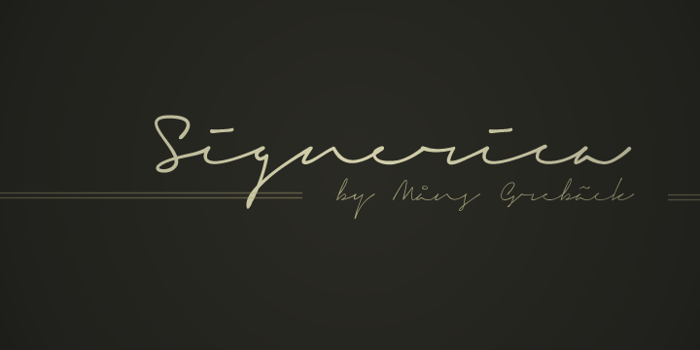
Signerica Font
Signerica Thin
Signerica Medium
Signerica Fat
This is absolutely beautiful.
This is AWESOME!
sik font
nice 😛
this looks like a proper signiture!!!!
it looks like a legit signature!! I wish my signature looks like this... 😄
Used this for my tattoo, turned out AWESOME.
I done tattoe base on that font is awesome !